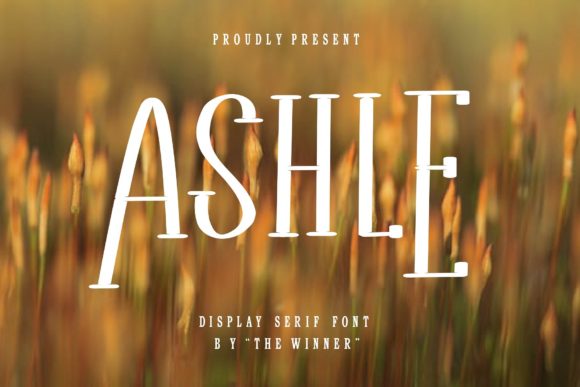
Discover the Versatility of Ashle Serif Font
Have you ever been in the middle of a design project, and suddenly, you’re stuck on finding the perfect font? I recall a recent experience where I was working on a branding project for a new coffee shop, and I just couldn’t find a font that captured the right balance of elegance and playfulness. That’s when I stumbled upon Ashle serif font, and it completely transformed my design. In this article, we’ll dive into the world of Ashle font, exploring its features, uses, and what makes it an excellent addition to your design toolkit.
A Personal Encounter with Ashle Font
As a designer, I’m always on the lookout for fonts that can elevate my projects. Ashle font caught my attention with its unique blend of classic serif elements and modern flair. It’s perfect for branding, product packaging, invitations, quotes, t-shirts, labels, posters, or any logo you want to develop. With Ashle, you can make all your design projects more attractive and take your designs to the next level.
An Honest Review of Ashle Font
What I Love About Ashle Font
• ✨ Unique Serif Design: Ashle font boasts a distinctive serif design that adds a touch of sophistication to any project.
• ✅ Highly Versatile: Whether you’re working on branding, packaging, or marketing materials, Ashle font adapts seamlessly.
• 💡 Excellent Legibility: The font is clear and readable, even at smaller sizes, making it perfect for body text and headings.
• 🎨 OpenType Features: Ashle font comes with a range of OpenType features, including stylistic alternates and glyphs, which allow for creative experimentation.
While Ashle font is incredibly versatile, there are a few minor quirks to be aware of:
• 🤔 Limited Condensed Styles: Ashle font has limited condensed styles, which might make it less suitable for projects requiring extremely narrow text.
• ⚠️ Some Characters May Require Manual Kerning: Depending on the context, some character combinations might require manual kerning for optimal results.
The Backstory of Ashle Font
Ashle font was designed with the goal of creating a versatile, elegant serif font that could cater to a wide range of design needs. Inspired by classic typography and modern design trends, Ashle font aims to bring a touch of sophistication to any project. While the actual designer behind Ashle font remains a mystery, their creation has undoubtedly made a significant impact on the design community.
Q: What type of projects is Ashle font best suited for?
Ashle font is highly versatile and can be used for a variety of projects, including branding, product packaging, invitations, quotes, t-shirts, labels, posters, and more.
Q: Does Ashle font support OpenType features?
Yes, Ashle font comes with a range of OpenType features, including stylistic alternates and glyphs, allowing for creative experimentation and customization.
Q: Is Ashle font suitable for body text?
Yes, Ashle font is clear and readable, making it suitable for body text. However, its elegance and sophistication also make it perfect for headings and titles.